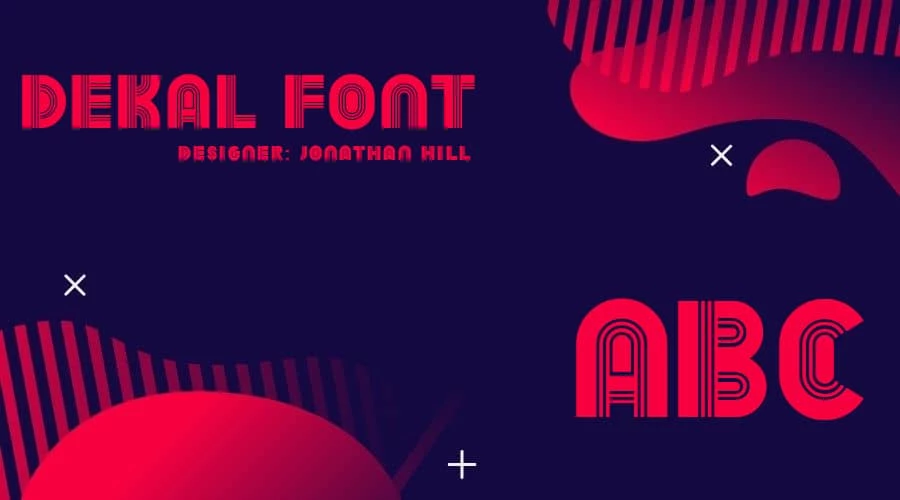
Dekal is a fancy multiline display typeface designed by Jonathan Hill. The Northern Block Foundry published this font. With ultra-sharp detailing and 244 characters, Dekal Font is visually dynamic. Details include: three unique styles, all-caps character set with alternatives, manually edited kerning, and a Euro symbol.
Dekal is very beautiful for design purposes. Graphic designers use the font in projects. On the other hand, publishers use the condensed type for headlines and for similar sections where presentation is the prime issue. Dekal font is a very eye-catching font, whenever you use it in your work it will look better than others.
- Designing: For huge designing purposes, Such as Business cards, Headlines, and brochure layouts, Dekal is at the top of everyone’s favorite list.
- Logos: You can design your logos with it.
- Websites: I have seen various websites use this font.
- Magazines: The font has the outlook to place on top of magazines.